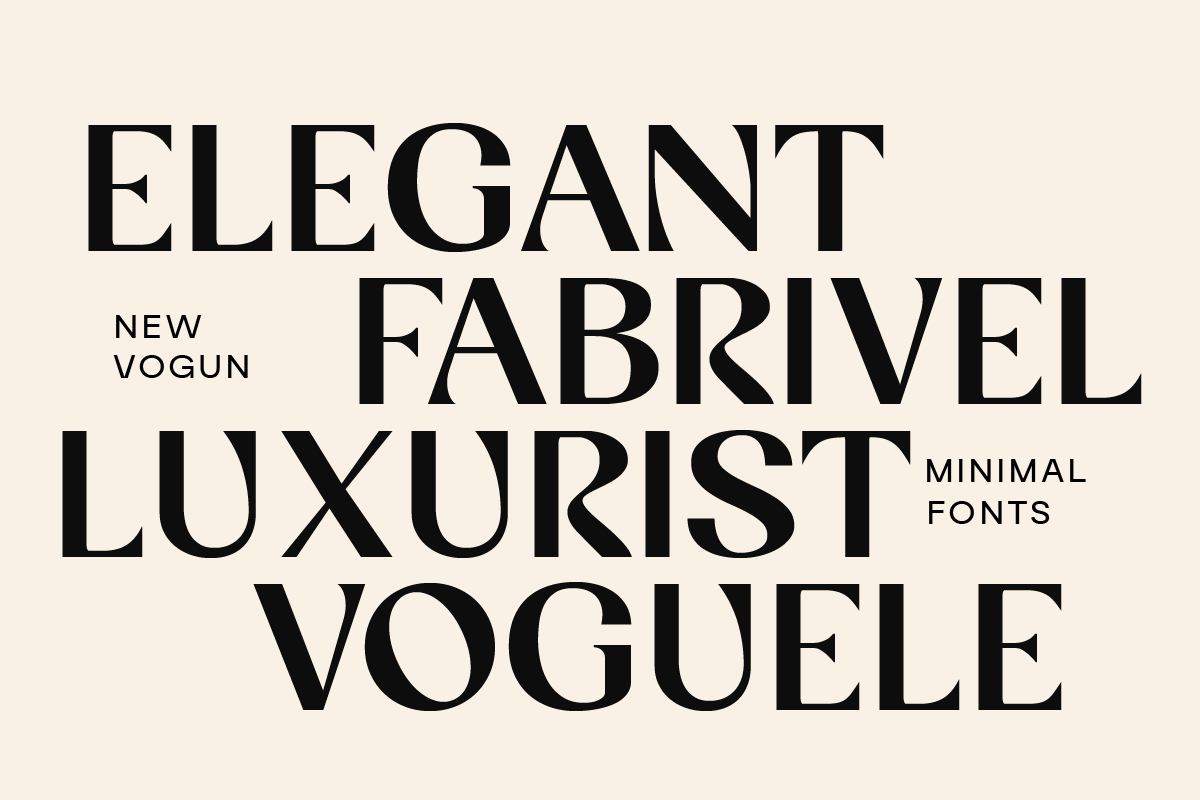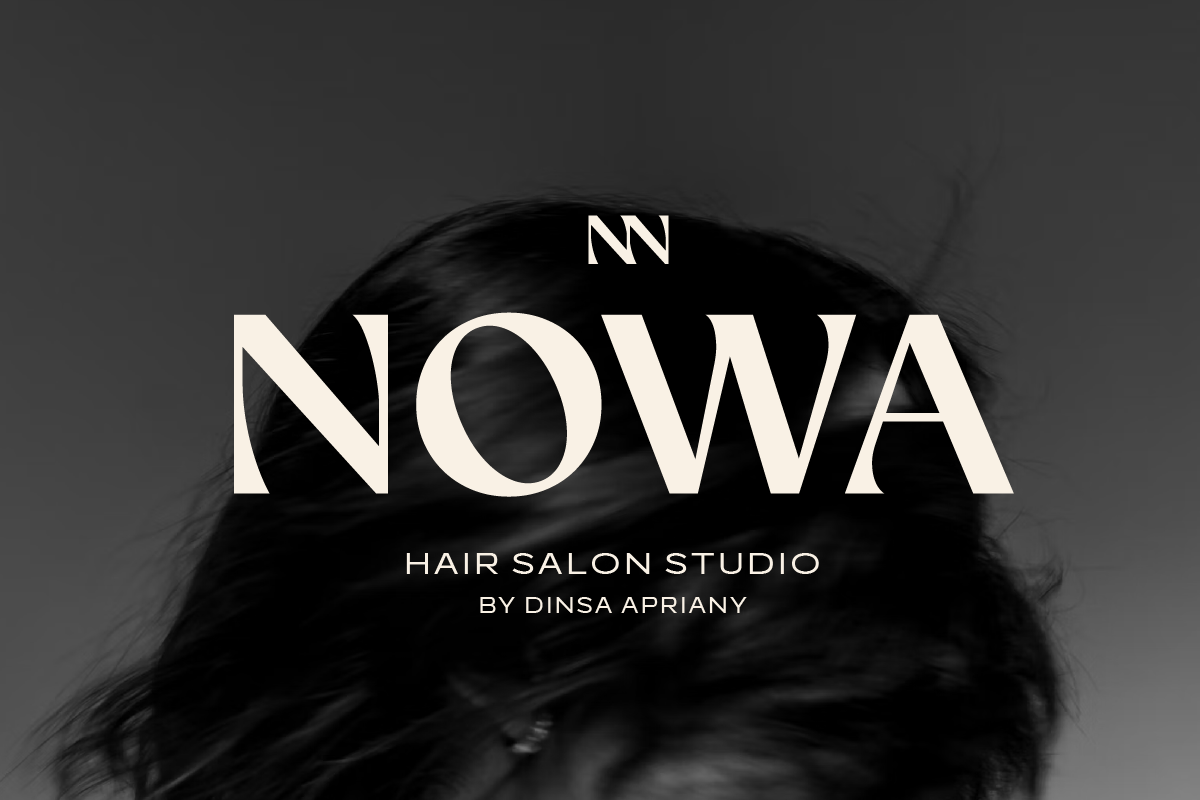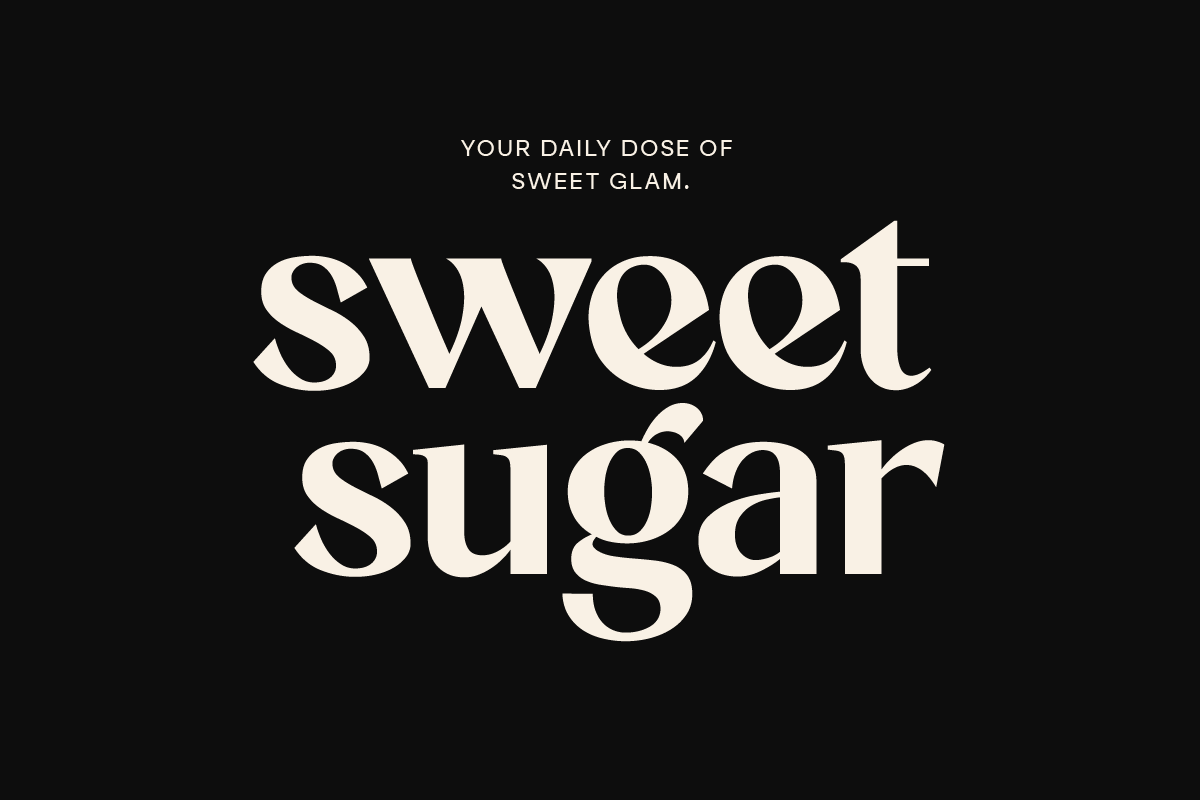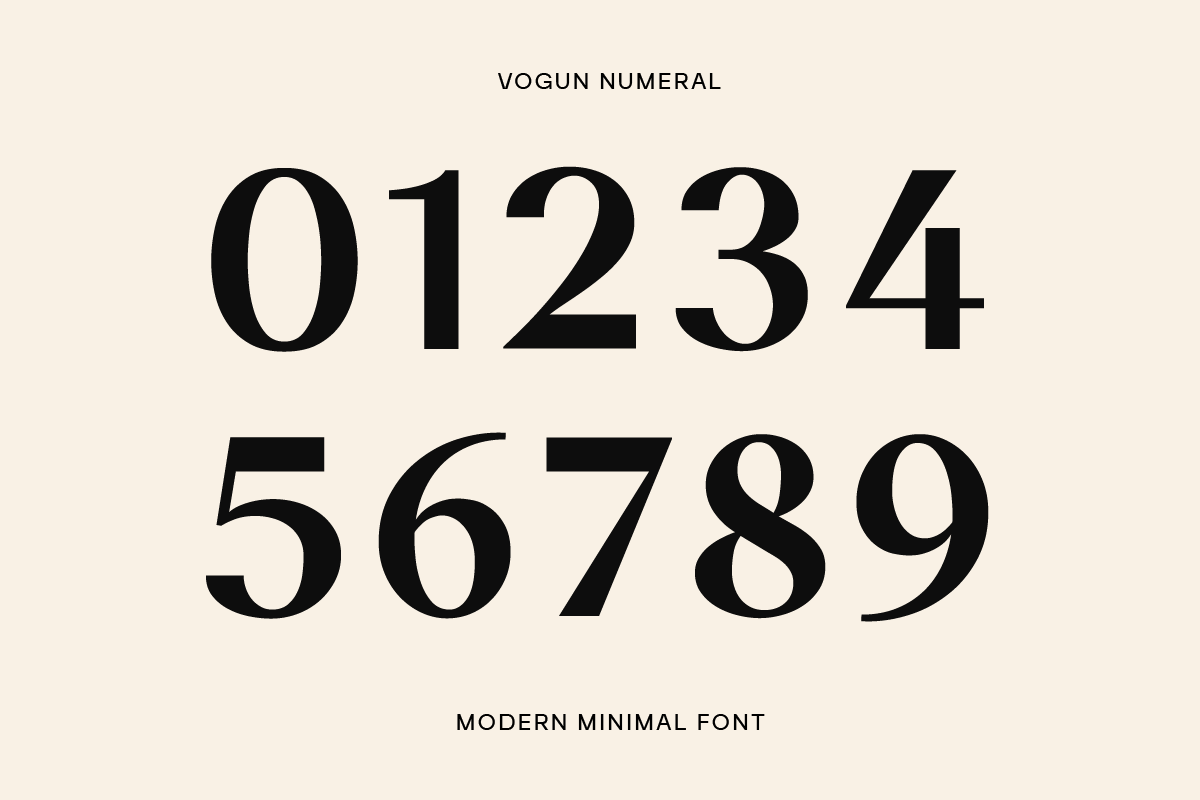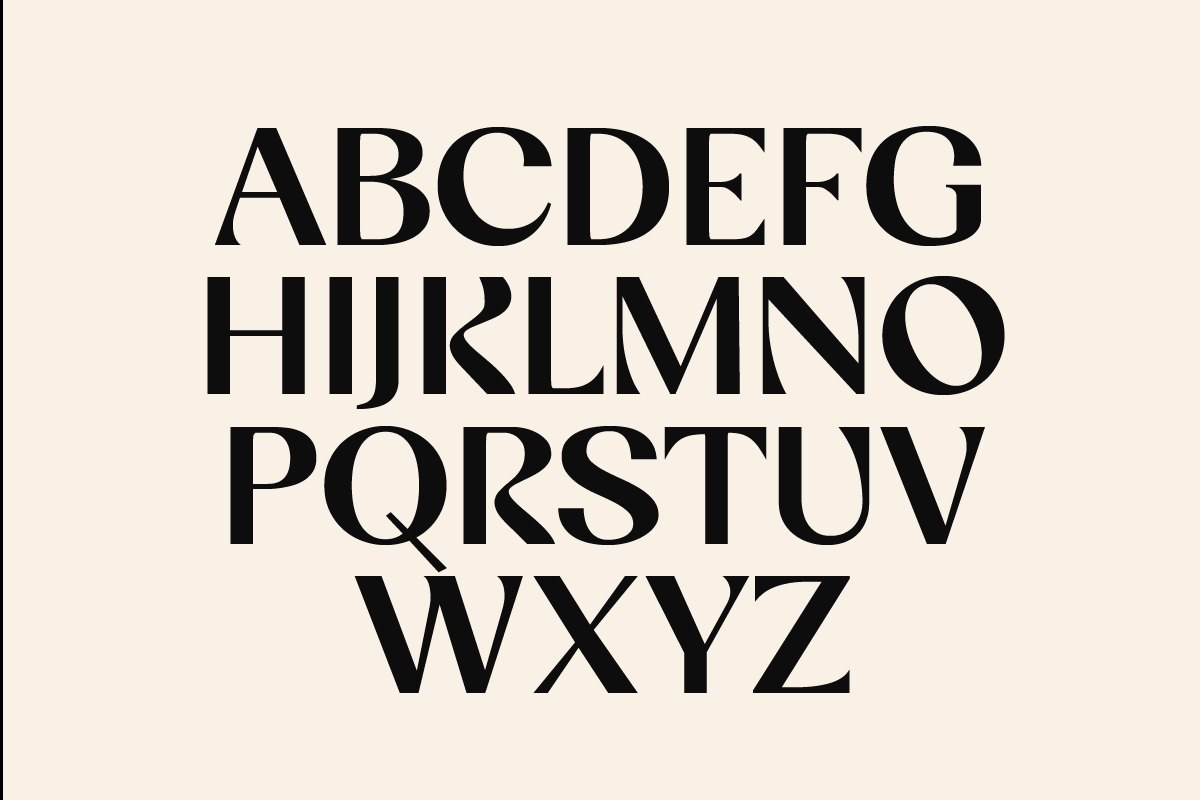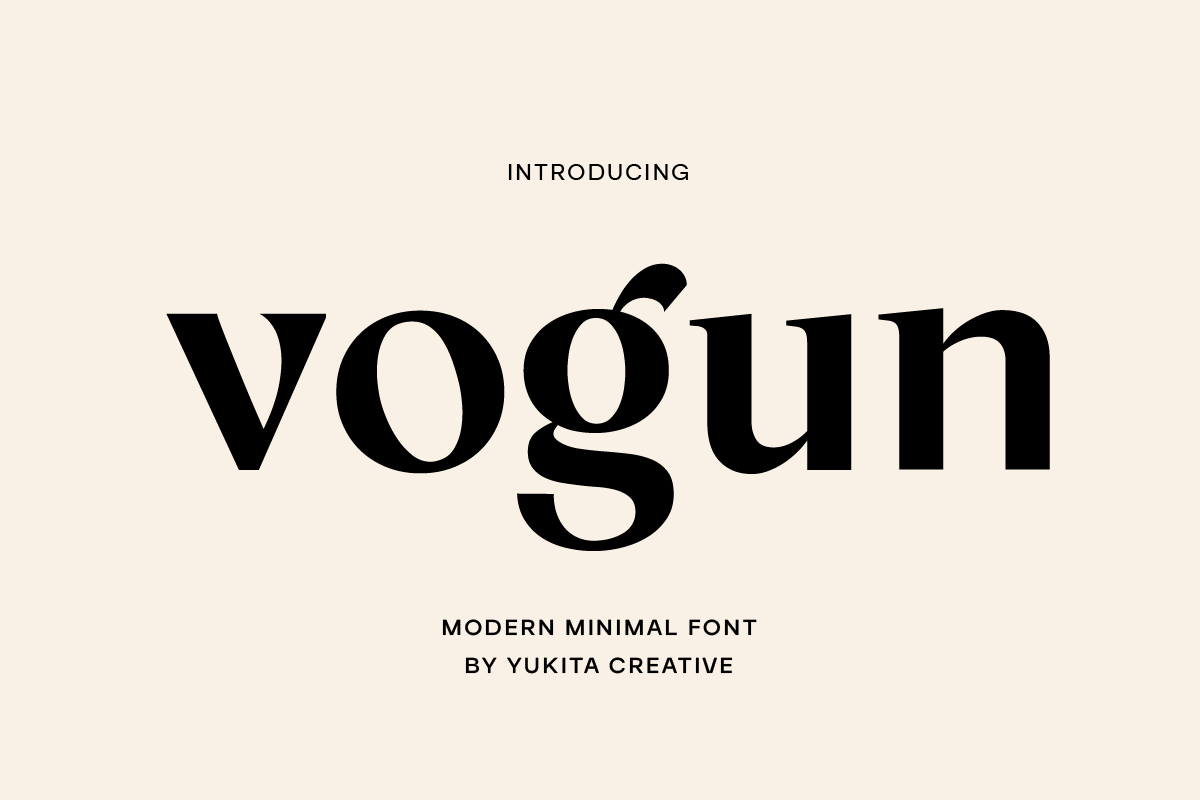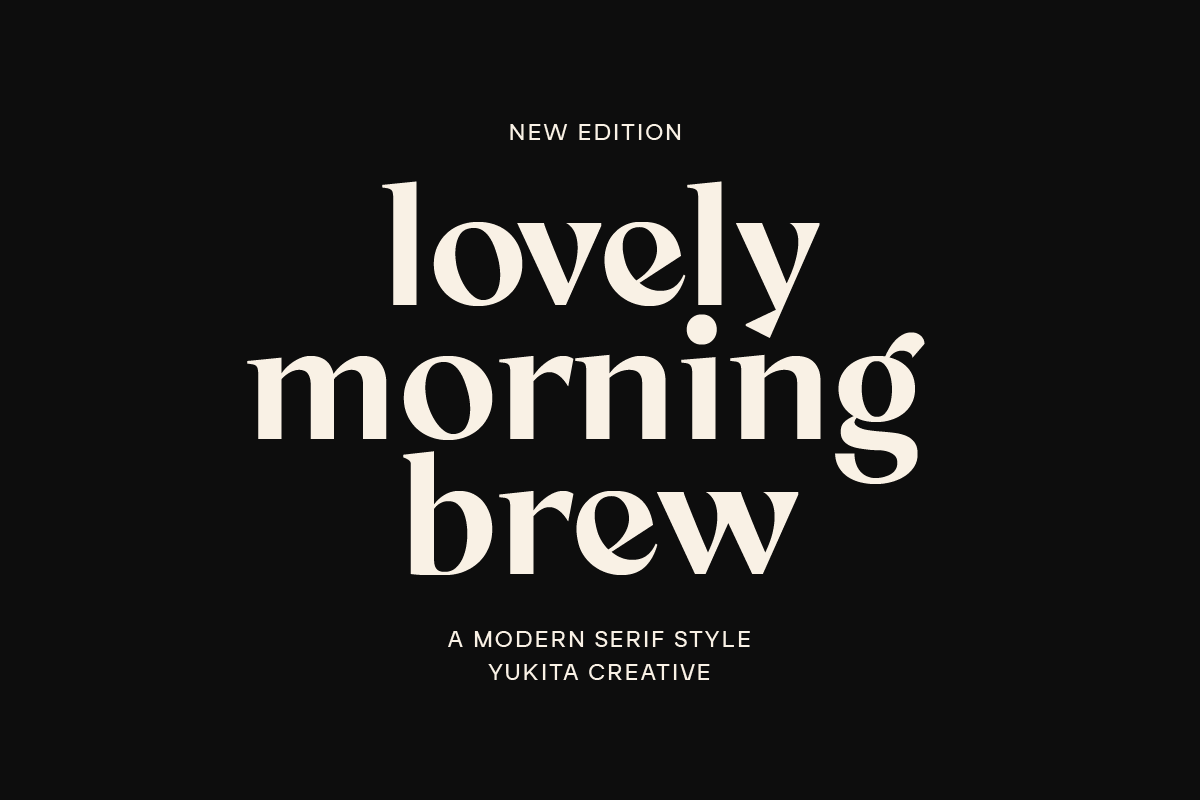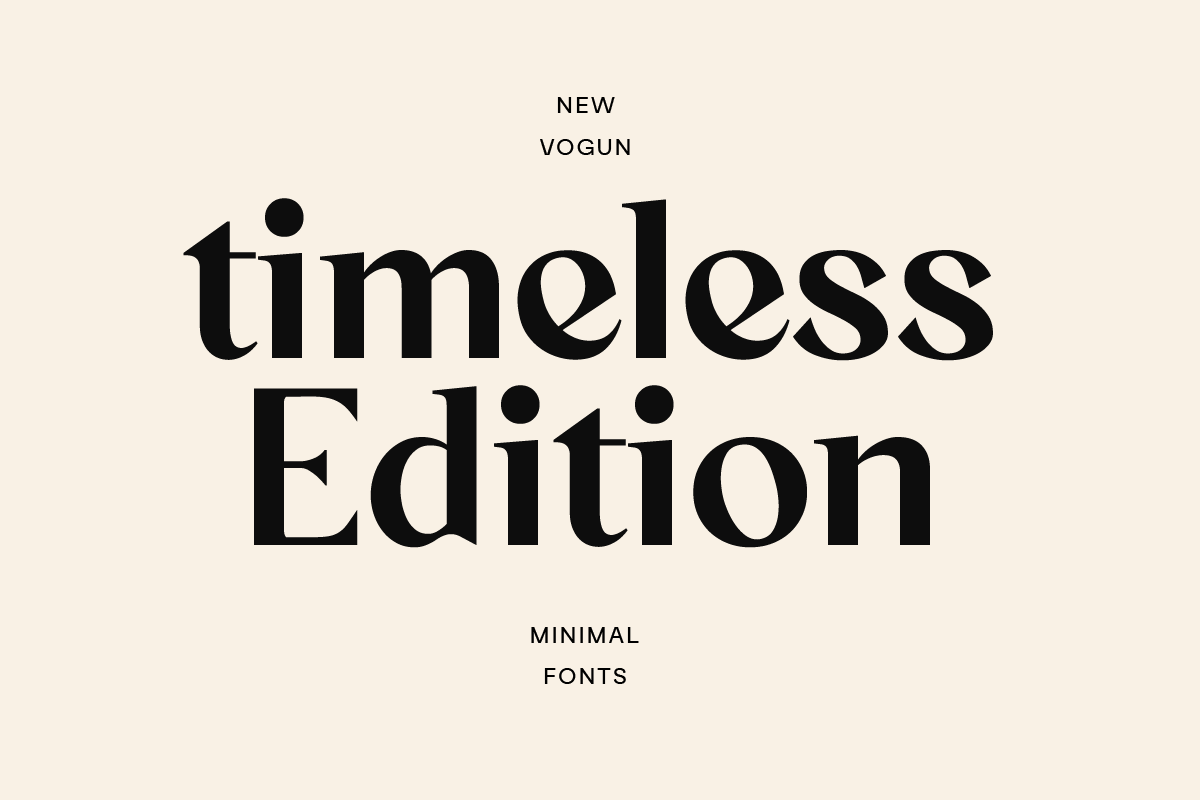
Vogun Minimal Modern Font
Vogun is a sleek and minimalistic display font designed for modern aesthetics. Its clean lines and balanced proportions make it an excellent choice for bold, eye-catching designs that demand simplicity and sophistication.
- Font Styles: Available in 2 styles: Regular and Italic, offering versatility for various design needs.
- Design Aesthetic: Minimal and modern, with a focus on clarity and elegance.
- Application: Perfect for branding, headlines, posters, packaging, and contemporary design projects.
Highlights:
- Striking simplicity combined with a refined look.
- Ideal for both print and digital designs.
- Designed for designers who value minimalism without compromising style.
With Vogun, simplicity meets boldness, making every project stand out with effortless elegance.